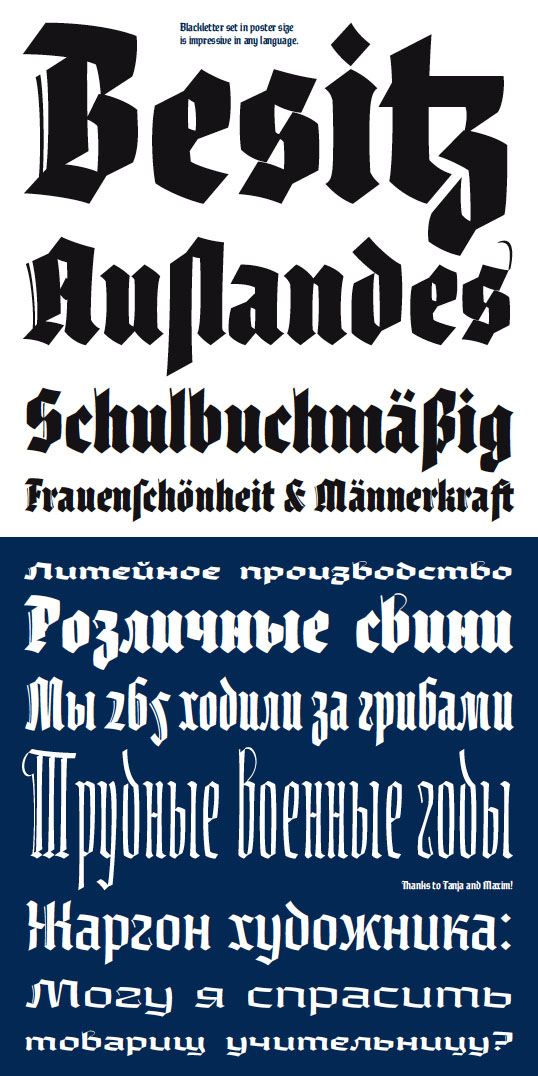
Moyenage (StormTypeFoundry)
Blackletter typefaces follow certain fixed rules, both in respect to their forms and to the orthography. Possibly, they were a reaction to the half-developed Carolingian minuscule which was soon to end in the Latin script. Narrow, ordered script was to replace the round, hesitant and shattered shapes of letters in order to simplify writing, to unify the meaning of individual letters, and to save some parchment, too. Opposed to the practice common in monasterial scriptoriums where Uncial, Irish and Carolingian inspiration flew freely and as a result, the styles of writing differed in each monastery, the blackletter type was to define one, common standard. It was to express spiritual verticality, in perfect tune with the architecture of the Gothic era. Typography became an integral part of the overall style of the period. The pointed arch and the blackletter type were the vanguard of the spectacular transformation from the Middle Ages towards the modern era, they were a celebration of a time when works of art were not signed by their makers yet.
Some unfortunate souls keep linking blackletter solely with Germany and the Third Reich, while the truth is that its direct predecessor, the Gothic minuscule, evolved mostly in France. Even Hitler himself indicated blackletter type obsolete in the age of steel, iron and concrete – thus making a significant contribution to the spreading of the Latin script in Germany.
Once we leave our prejudice aside, we find that the shapes of blackletter type have exceptional potential, unheard of in sans-serif letterforms. The lower case letters fit into an imaginary rectangle which is easily extended bot upwards and sideways. In its scope and in the name itself, the Moyenage type family project is to celebrate the diversity of the Middle Ages.
I begun realizing the urge to design my own blackletter when visiting the beer gardens of Munich and while walking through the villages of rural Austria. The letters from the notice boards of inns are scented with spring air, with the flowers of cudweed, with white sausage and weissbier. The crooked calligraphic hooks and beaks seem to imitate the hearty yodeling of local drinkers and the rustle of the giant skirts of girls who distribute the giant wreaths of beer jugs.
Moyenage is, however, a modern replica of blackletter, so it contains some otherwise unacceptable Latin script elements in upper case. I chose these keeping the modern reader in mind, striving for better legibility. The font is drawn as if written with a flat pen or brush, and with the ambition to, perhaps, serve as a calligraphic model. In medium width, the face is surprisingly well legible; it is perfect for menus as well as posters and CD covers for some of the heavier kinds of music. It has five types of numerals and also a set of Cyrillic script, symbolising the blackletter union of Germans and Russians. Thus, it is well suited for the setting of bilingual texts of the German classic literature, which, according to the ancient rules, must not be set in Latin script.
… von der falschen Ligatur in »Ausland« einmal abgesehen: Das ist doch mal eine interessante Frakturinterpretation. Gebrochene Kyrillisch ist mir ganz neu. Gibt es dazu irgendwelche historischen Vorbilder oder ist das solcher Schwachsinn wie [specimen=Totaler Blödsinn:2arh9iwn]21354[/specimen:2arh9iwn]
… von der falschen Ligatur in »Ausland« einmal abgesehen: Das ist doch mal eine interessante Frakturinterpretation. Gebrochene Kyrillisch ist mir ganz neu. Gibt es dazu irgendwelche historischen Vorbilder
Historisch ... weiß nicht, aber immerhin scheint es auch andere gebrochene kyrillische Schriften zu geben, die die Russen selbst benutzen:
gut dass ich immer erst die neuen Postings lese bevor ich selbst schreibe, denn das mit der falschen Ligatur ist mir auch aufgefallen.
Bleibt aber noch meine Frage, ob nicht der Abstand vor dem e in "Besitz" und "Auslandes" etwas groß geraten ist. Ich würde ihn geringfügig verkleinern.